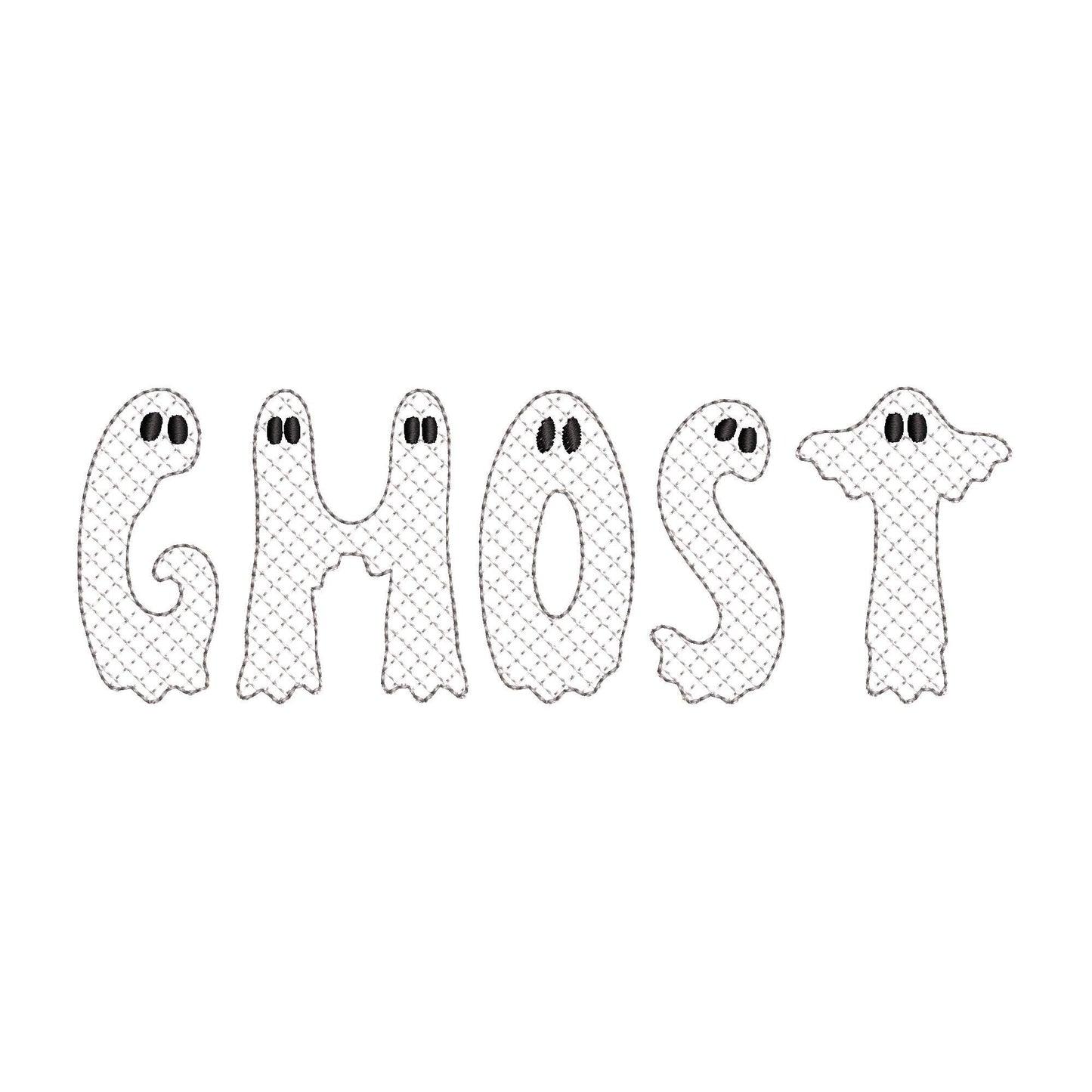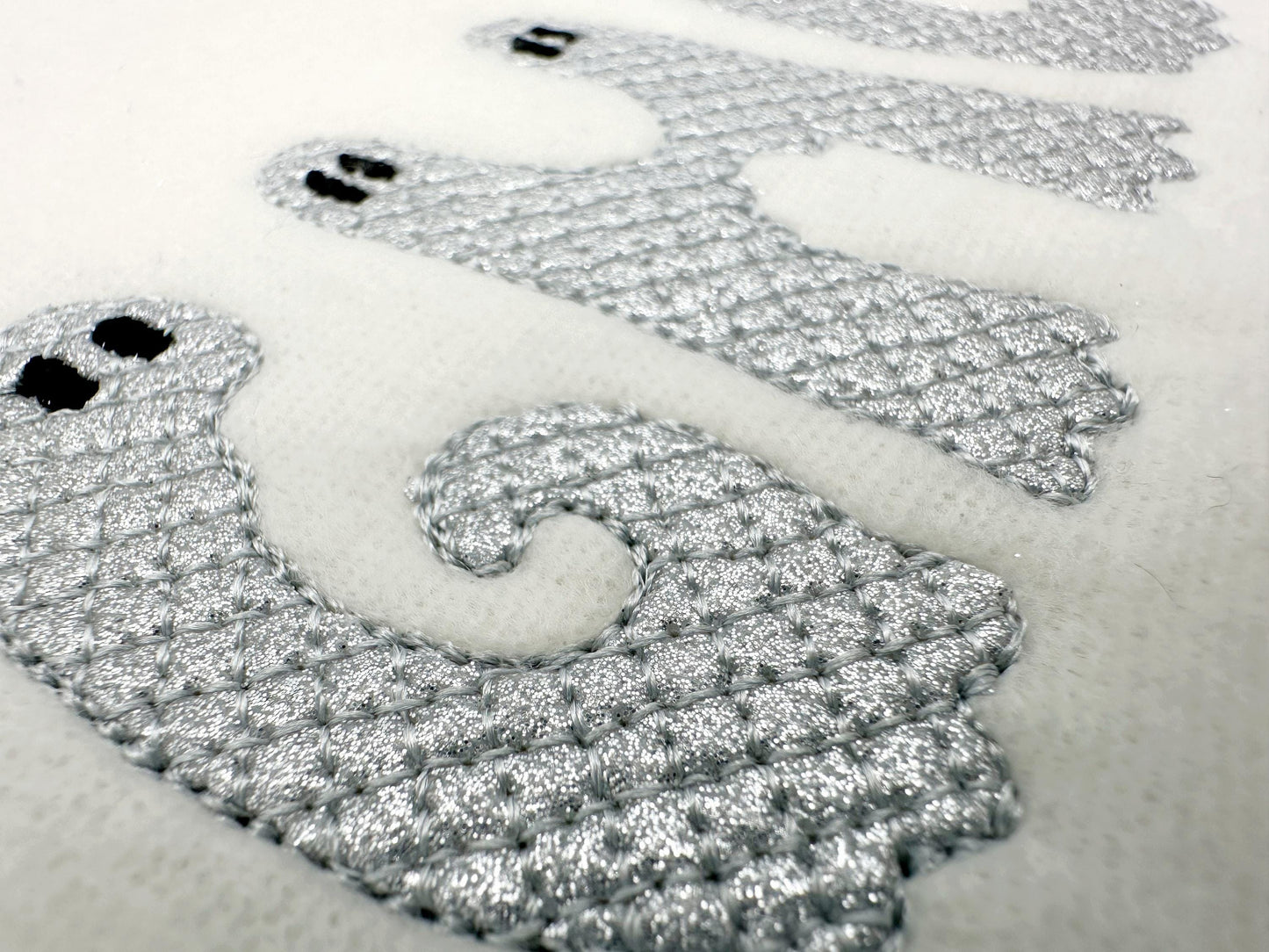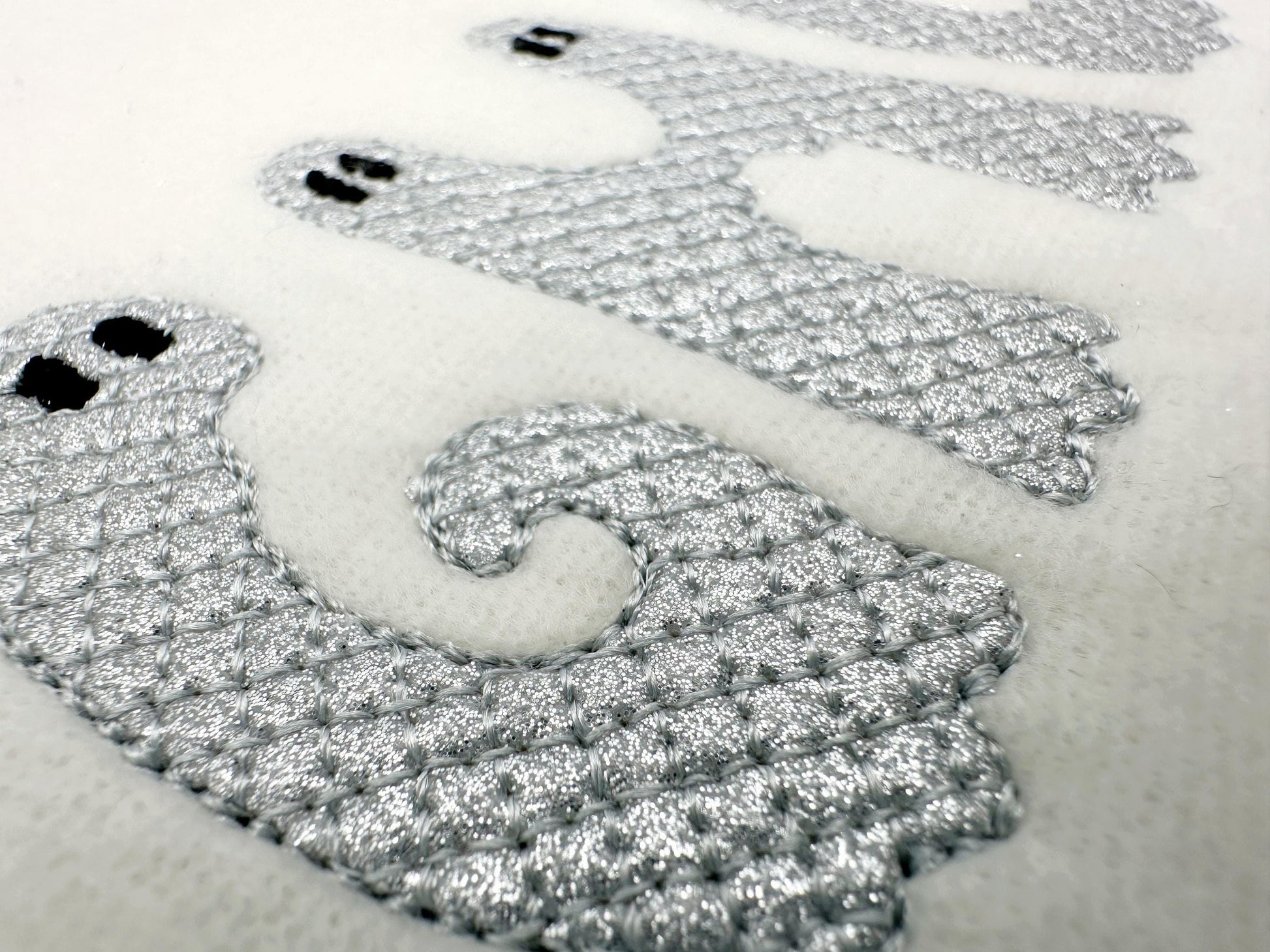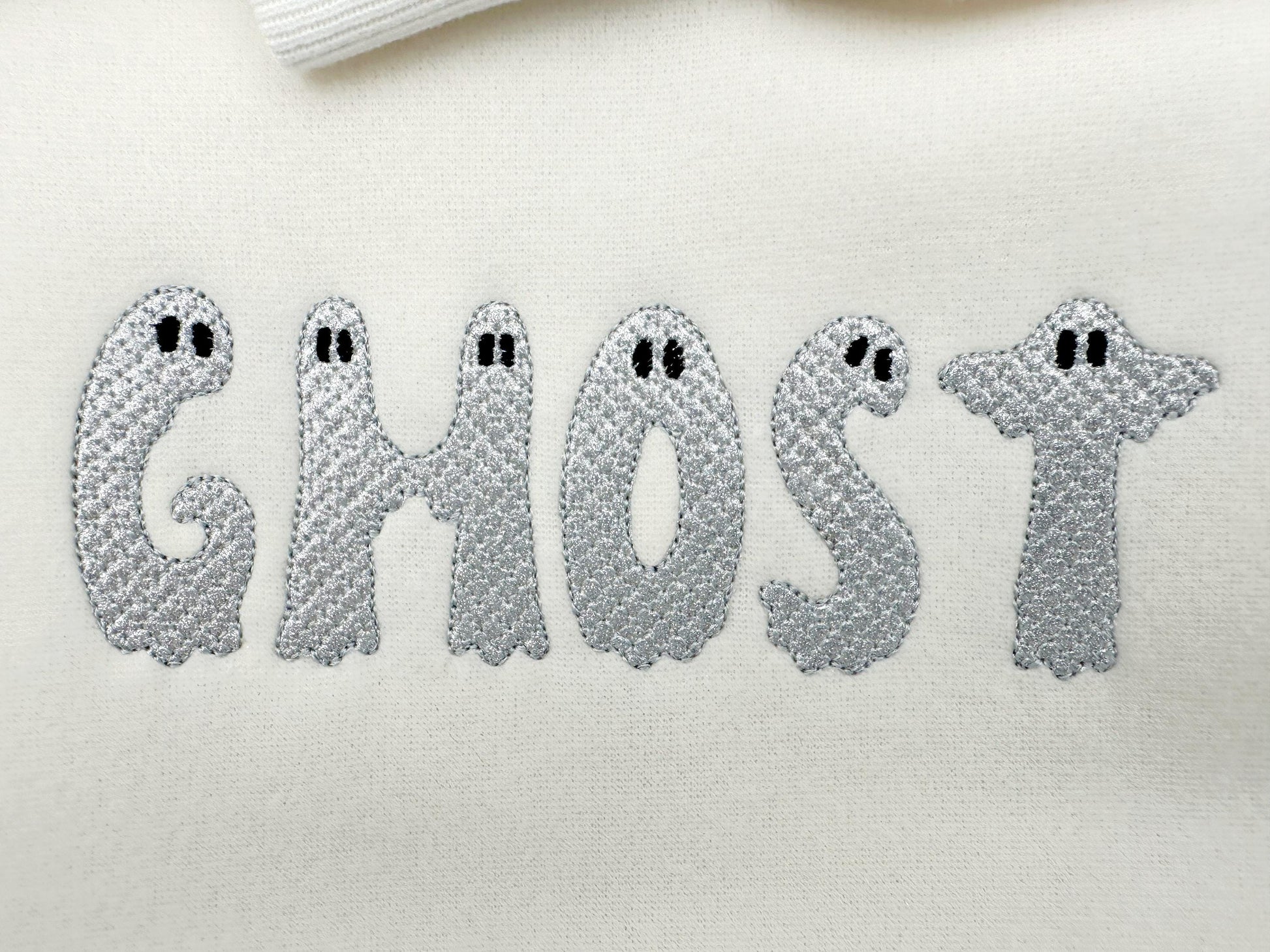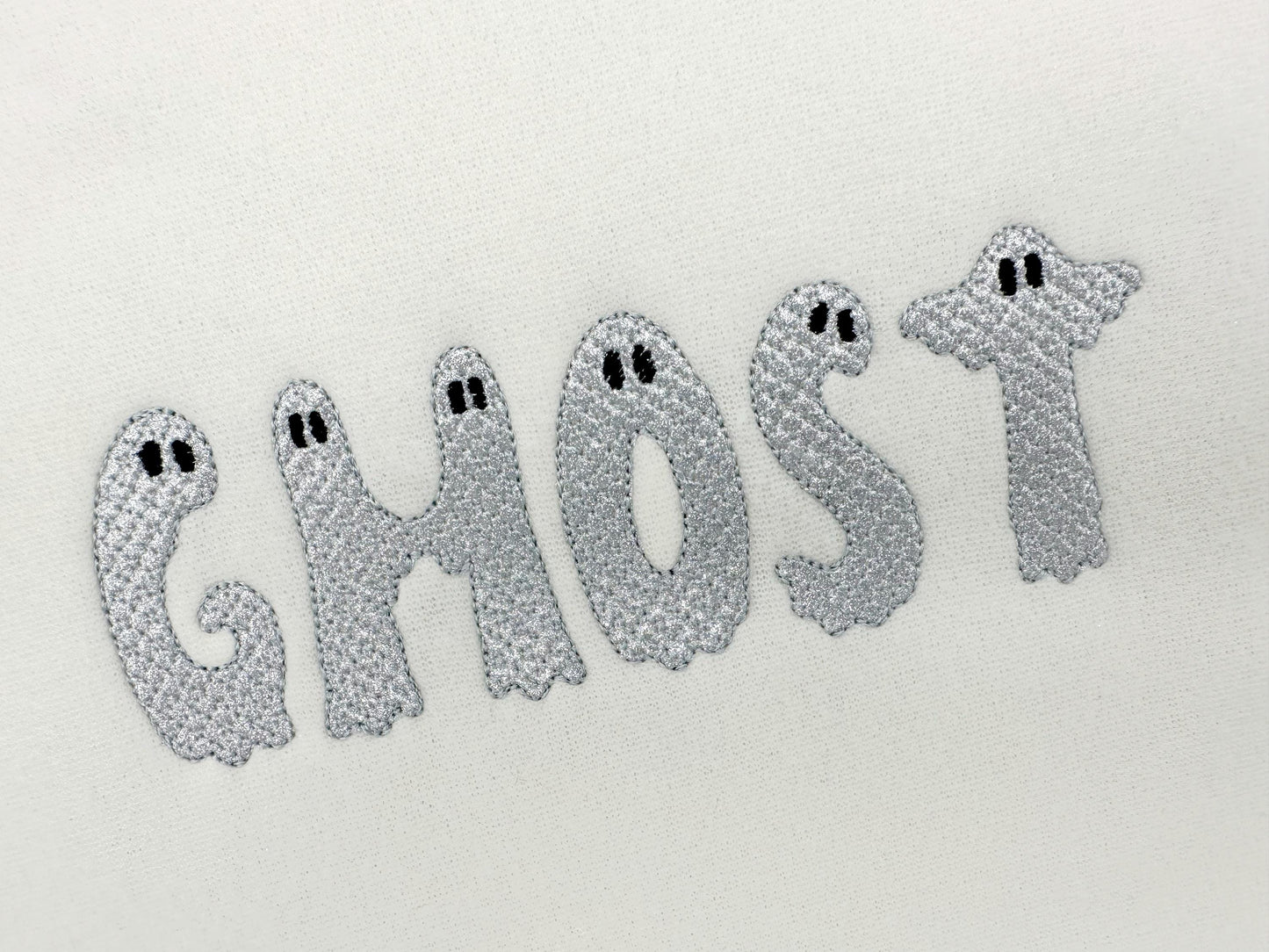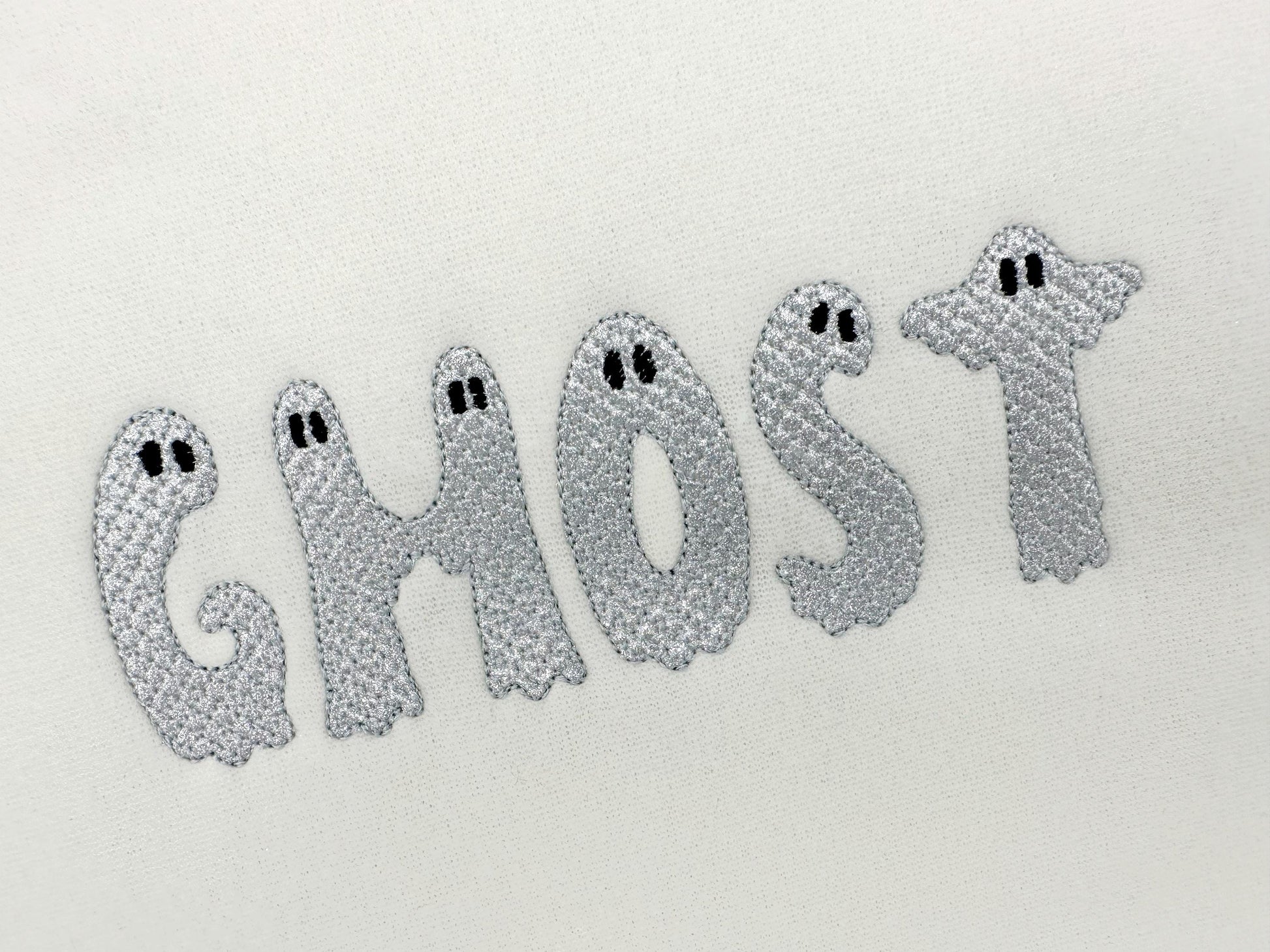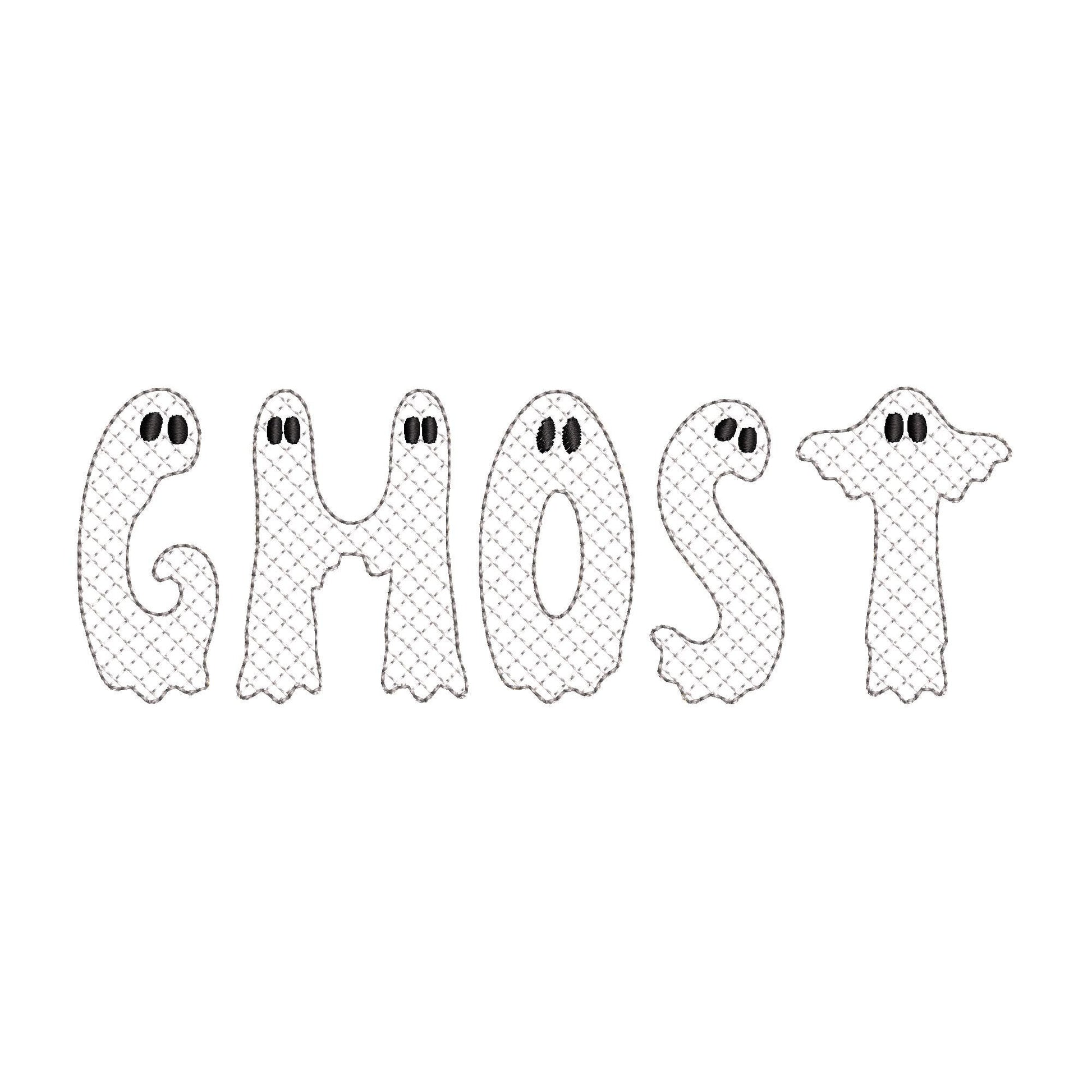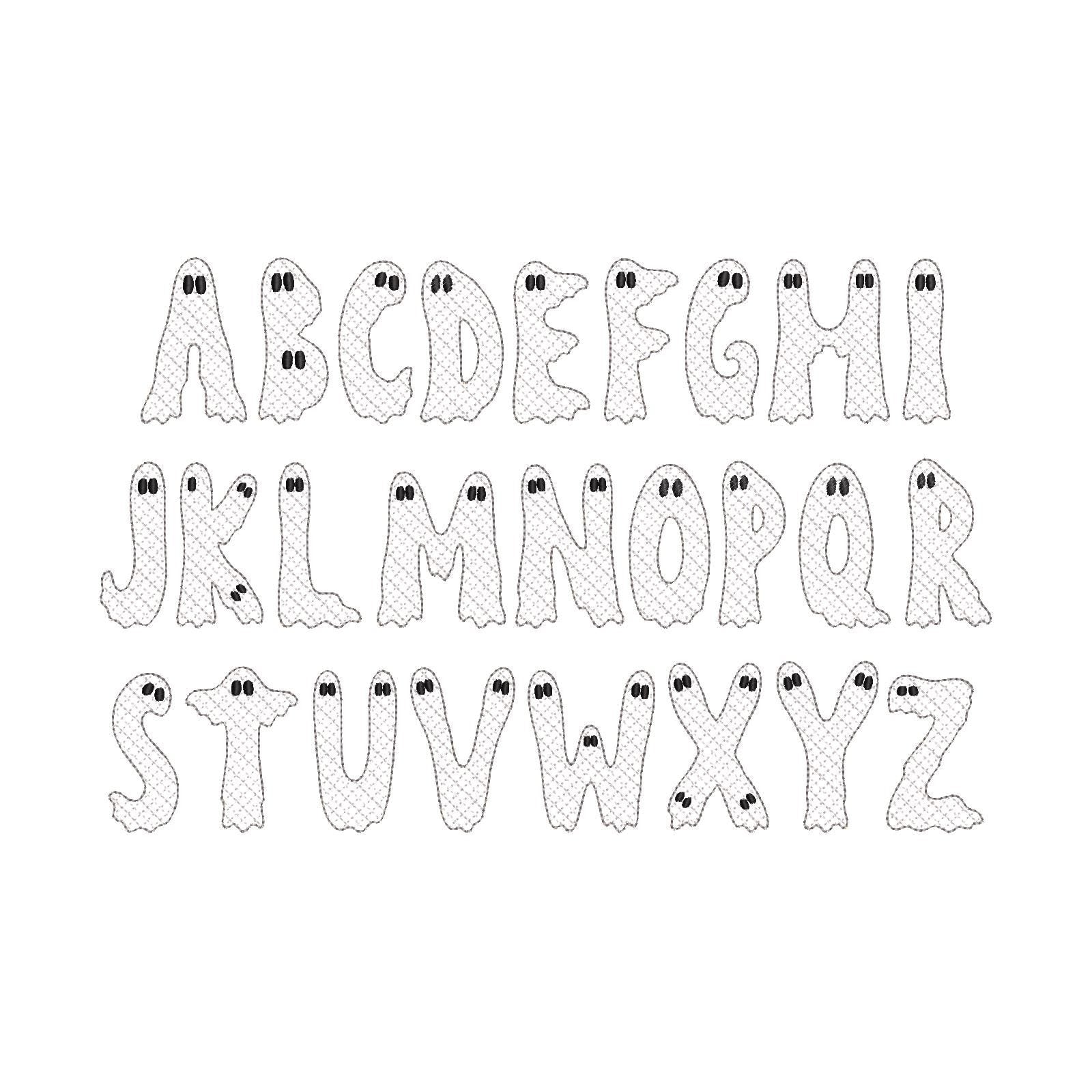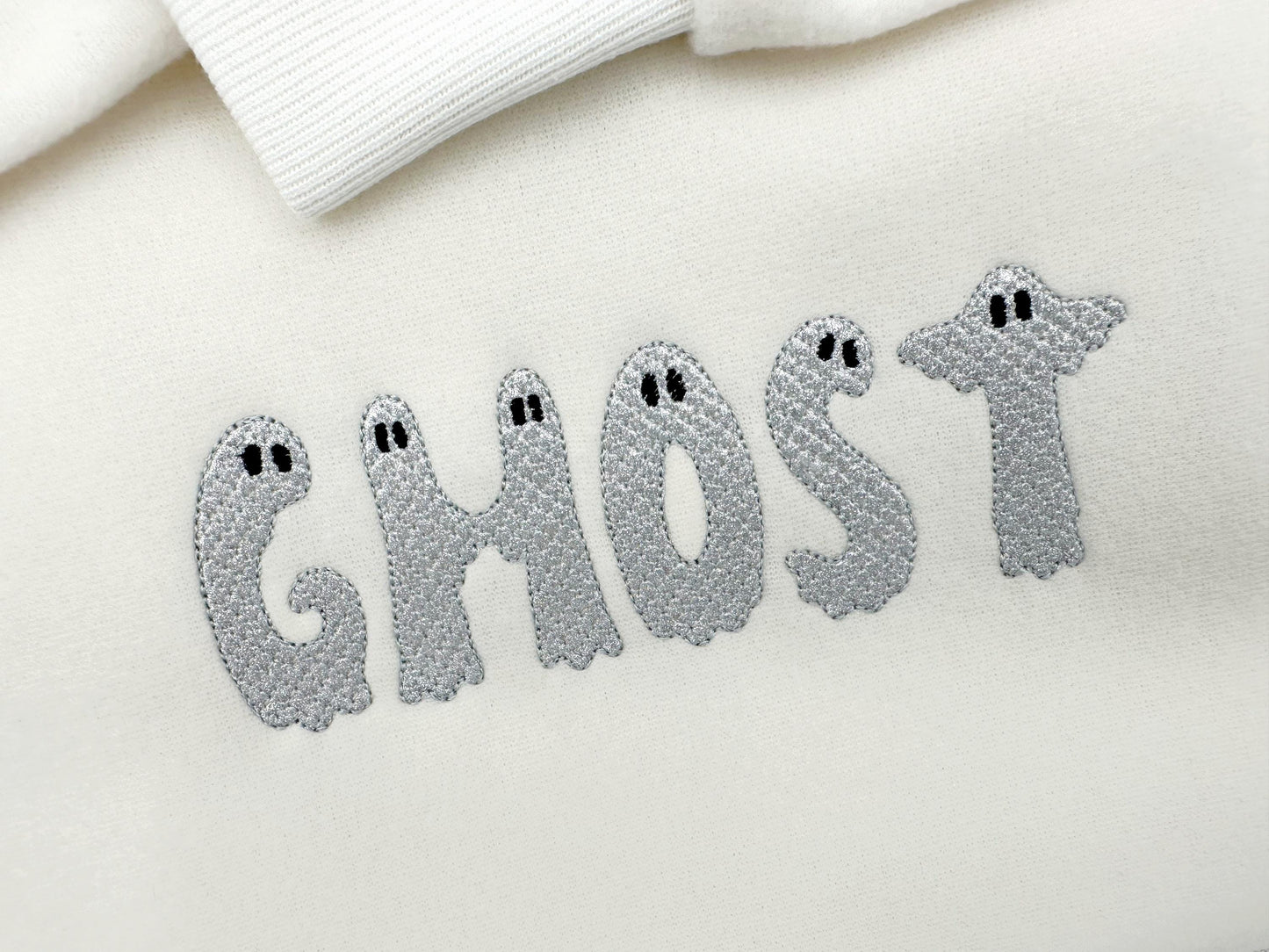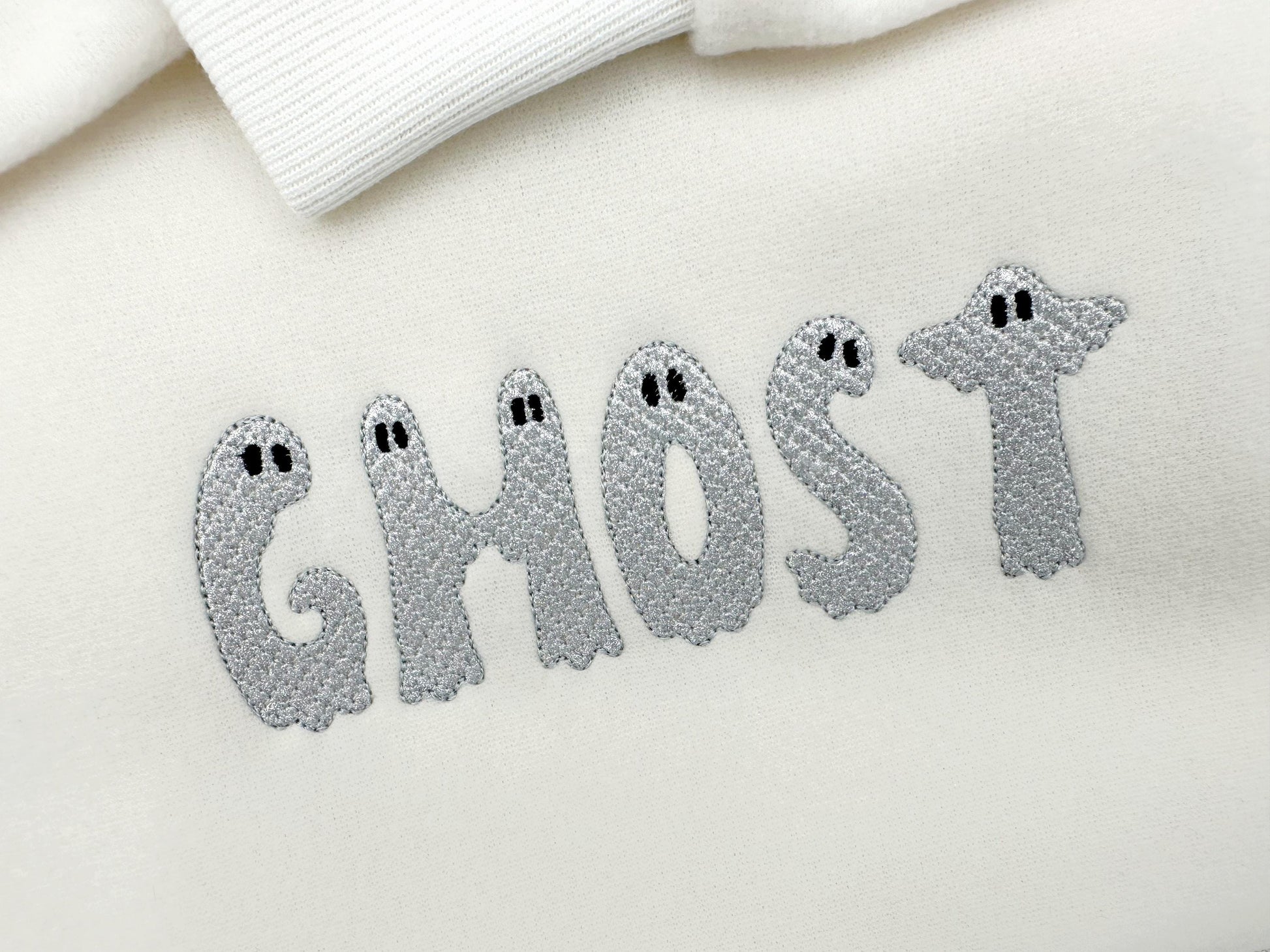
Halloween Glitter Ghost Font
All 26 uppercase letters, A to Z, in eight sizes: 1.2, 1.5, 1.8, 2.1, 2.5, 3, 3.6 and 4.4 inches. A placement stitch shows where to lay the glitter vinyl; neon or glow-in-the-dark vinyl works too. Press or iron the vinyl after stitching.
- Ghost glitter vinyl applique alphabet
- Uppercase A to Z
- 8 sizes, 1.2 to 4.4 in